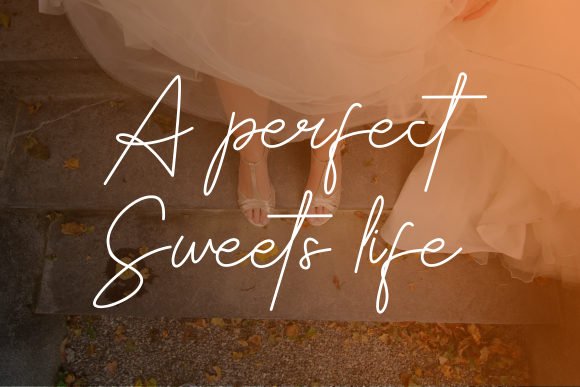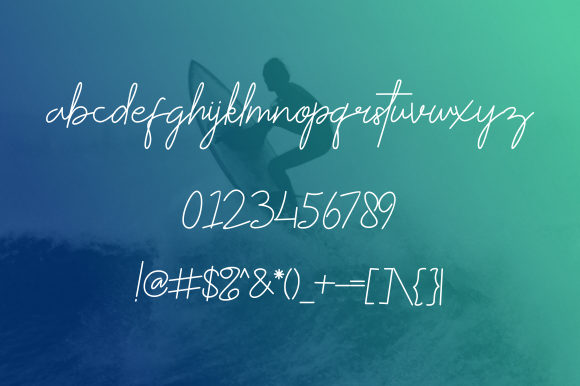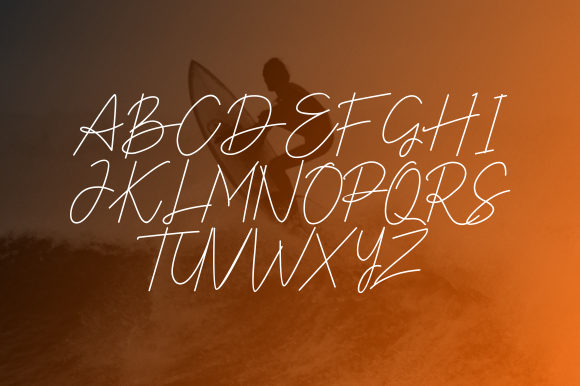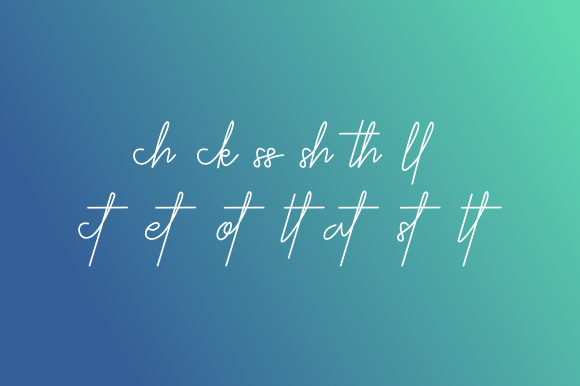
Astella Signature Font: Elevate Your Designs with Elegant Simplicity
Astella Signature is a lovely script font created with a minimalist touch. It is perfectly suited for a wide variety of projects! In this article, we’ll dive into the world of Astella Signature, exploring its features, uses, and benefits for designers and crafters.
The Beauty of Minimalism
Astella Signature boasts a clean and elegant design, characterized by its minimalist approach. The font’s simplicity makes it incredibly versatile, allowing it to seamlessly integrate into various design projects. Whether you’re working on a logo, invitation, or branding material, Astella Signature’s understated sophistication will elevate your work.
Key Features of Astella Signature Font
- Script Font: Astella Signature is a script font that adds a touch of elegance and refinement to any design.
- Minimalist Design: The font’s clean lines and simple curves create a beautiful, uncluttered look.
- Versatile: Astella Signature is suitable for a wide range of projects, from logos and invitations to packaging and branding materials.
- Easy to Read: The font’s clear and legible design ensures that your message is conveyed effectively.
Uses of Astella Signature Font
Astella Signature’s versatility makes it an excellent choice for various design applications. Here are some ideas to get you started:
- Logos and Branding: Create a lasting impression with Astella Signature’s elegant and sophisticated design.
- Invitations and Stationery: Add a touch of refinement to your invitations, greeting cards, and stationery.
- Packaging Design: Elevate your product packaging with Astella Signature’s clean and minimalist aesthetic.
- Digital Media: Use Astella Signature in your digital projects, such as social media graphics, blog headers, and email newsletters.
Astella Signature offers numerous benefits for designers and crafters, including:
- Time-Saving: The font’s versatility and ease of use save you time and effort in your design process.
- Consistency: Astella Signature’s consistent design ensures that your brand’s visual identity remains cohesive across various platforms.
- Creativity: The font’s elegant design sparks creativity, allowing you to experiment with different styles and ideas.
- Professionalism: Astella Signature’s sophisticated look adds a professional touch to your designs, setting you apart from the competition.
Tips for Using Astella Signature Font
To get the most out of Astella Signature, follow these tips:
- Pair with Bold Fonts: Combine Astella Signature with bold fonts for a striking contrast.
- Experiment with Colors: Try different color schemes to find the perfect match for your design.
- Pay Attention to Spacing: Adjust the spacing between letters and words to create a visually appealing layout.
Astella Signature Font is a beautiful and versatile script font that can elevate your designs with its elegant simplicity. Its minimalist touch makes it perfect for a wide range of projects, from logos and invitations to packaging and branding materials. With its clear and legible design, Astella Signature is an excellent choice for designers and crafters looking to add a touch of sophistication to their work.